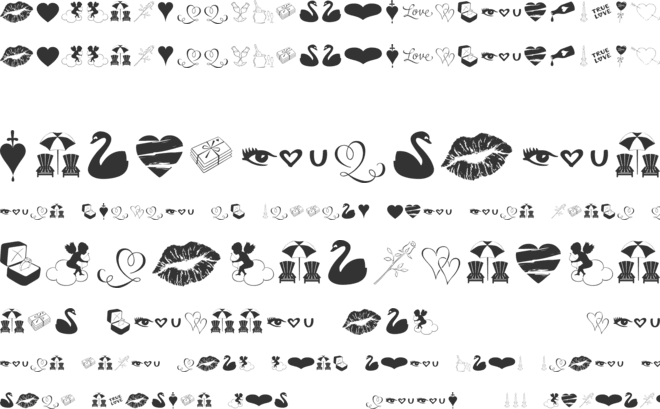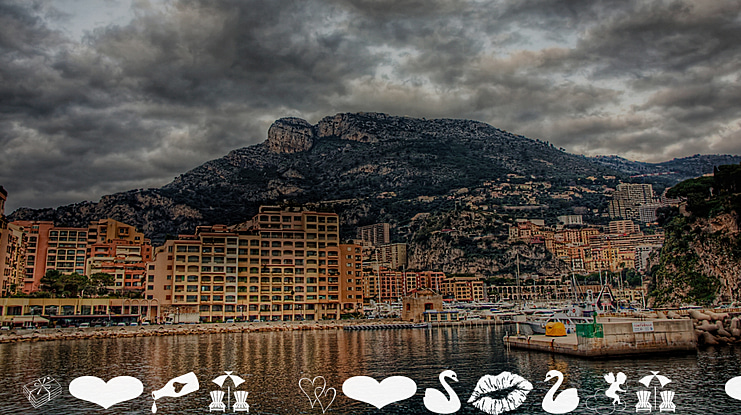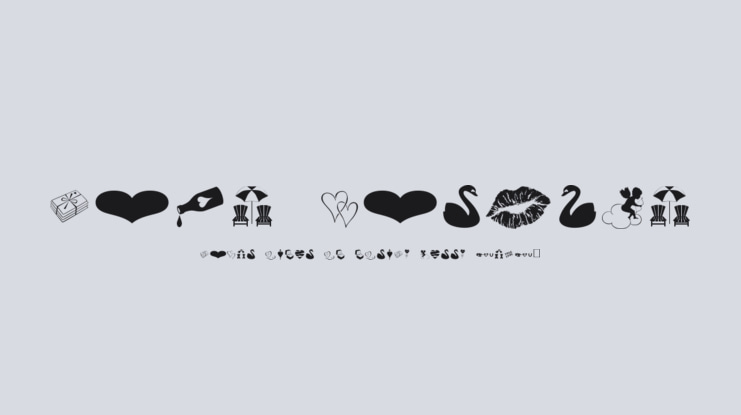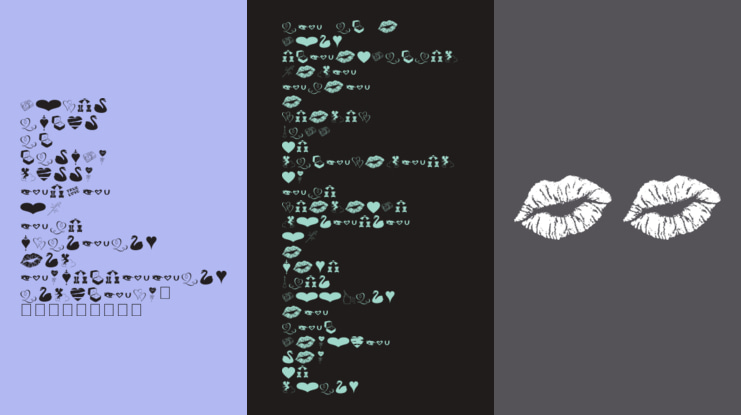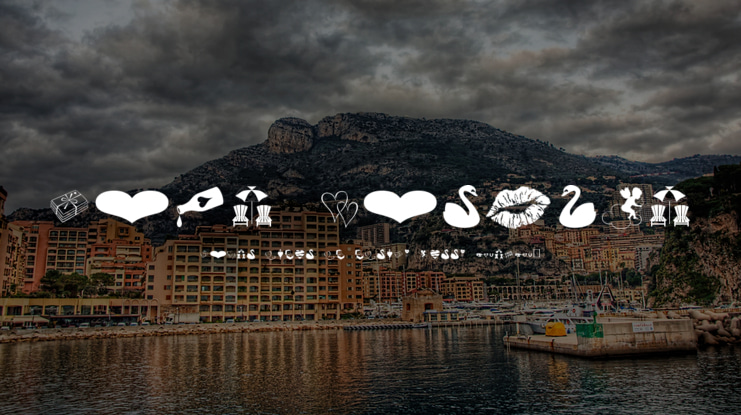
Love Romance Font Family
Rah rah, oh lala! Love Romance will fill your heart and hard drive with all things romantic. All illustrations are original works by Jess Latham.